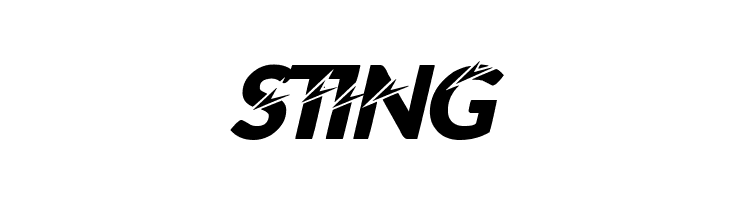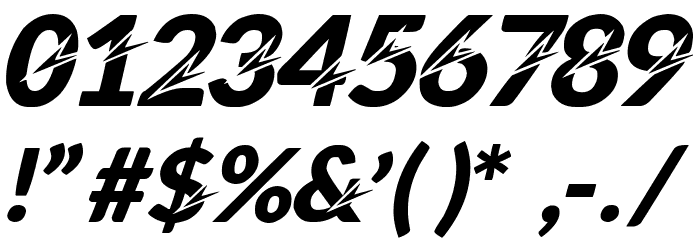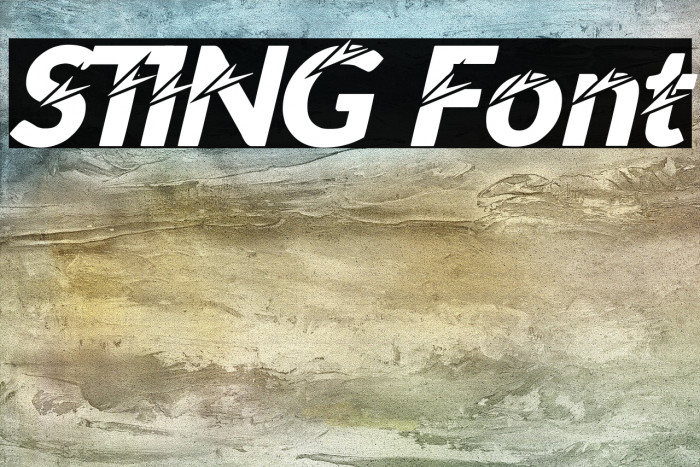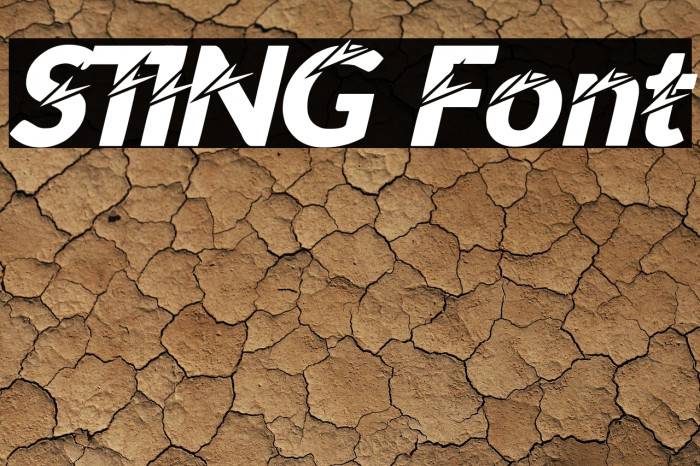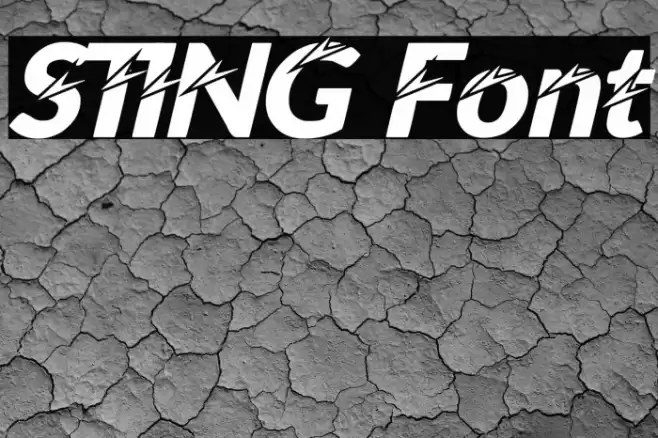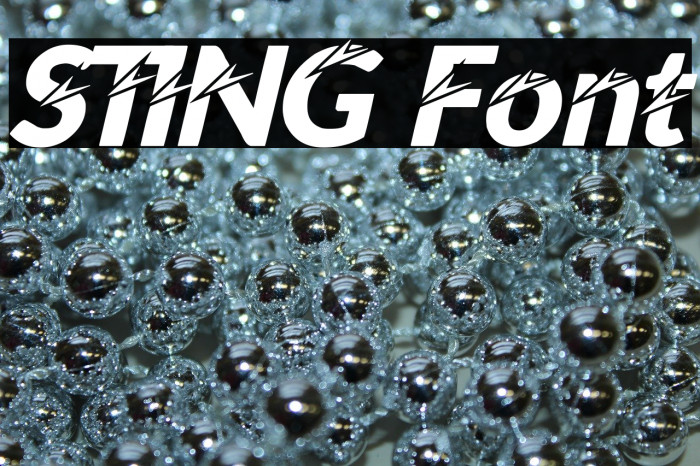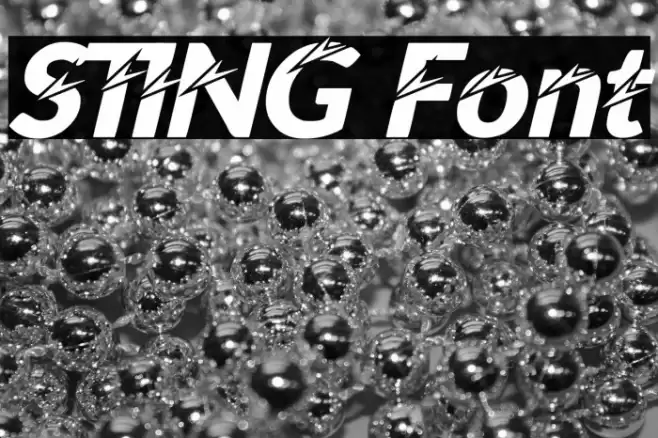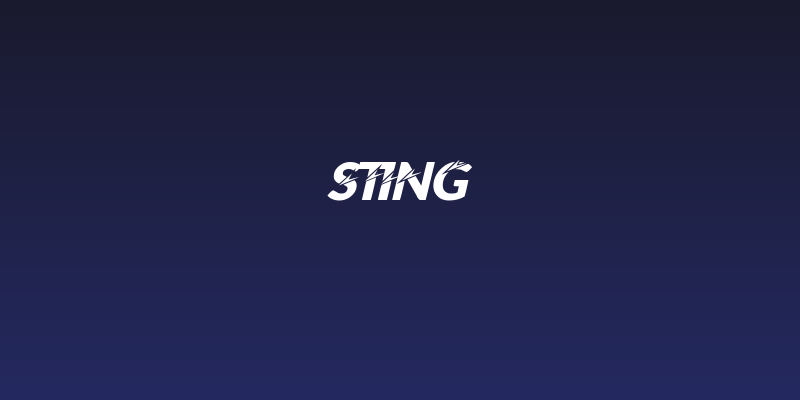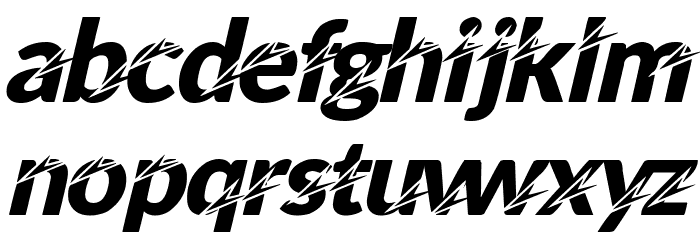
STING Font
STING Description
This font features a bold, italicized style with a distinctive lightning bolt motif cutting through each character, adding a dynamic and energetic feel. The uppercase and lowercase letters maintain a consistent slant, enhancing the sense of motion. The numerals and special characters follow the same design, ensuring uniformity across all glyphs. The font's thick strokes and sharp angles contribute to its striking appearance, making it ideal for attention-grabbing designs. Its unique design elements make it stand out, suitable for projects that require a bold statement.
| Proposed Projects | Ideal for music album covers, sports team branding, action movie posters, and dynamic logo designs. |